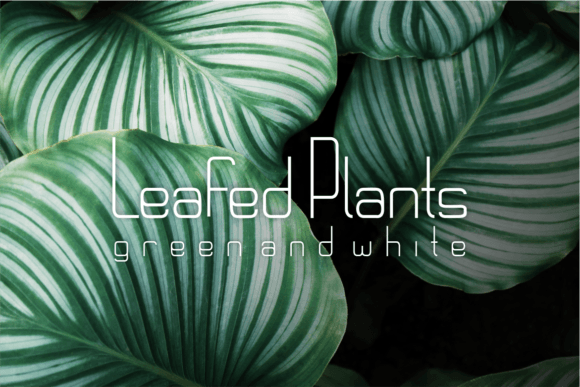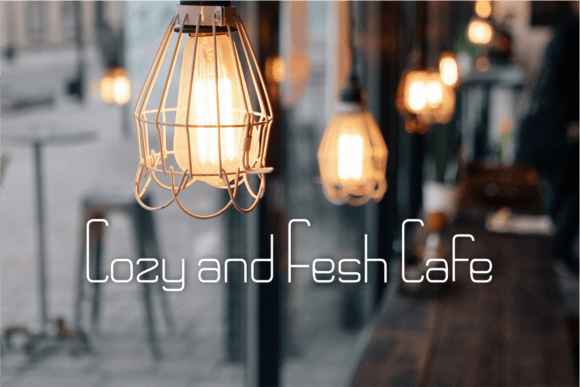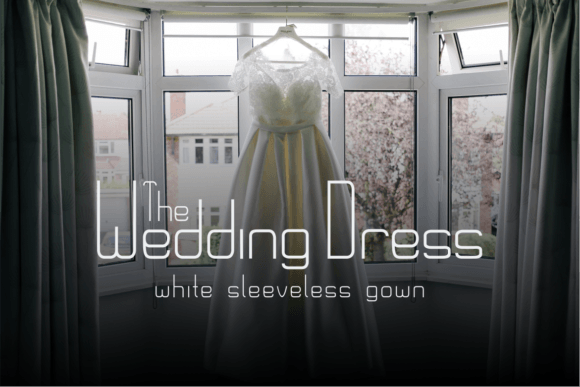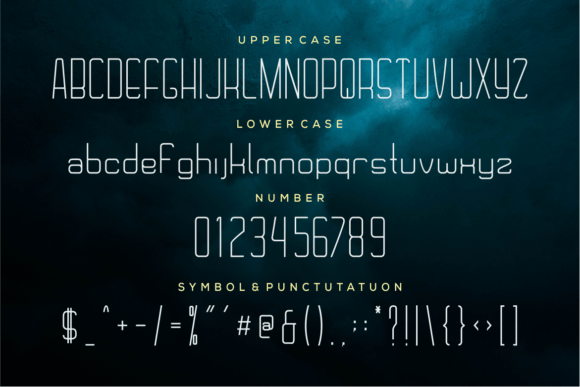
Etehnic Qee Font: Elevate Your Creative Projects with Elegance and Uniqueness
In the world of design, the right font can make all the difference in conveying your message effectively. For creative professionals, crafters, and designers, finding the perfect font that combines elegance, uniqueness, and versatility can be a daunting task. This is where Etehnic Qee Font comes into play – a thoughtfully crafted font designed to meet the creative needs of weddings, displays, cafes, and various other projects.
The Birth of Etehnic Qee Font
Etehnic Qee Font is the result of a meticulous design process aimed at creating a font that stands out from the crowd. Its creators envisioned a font that not only captures attention but also adds a touch of sophistication and charm to any project. With its own distinct uniqueness, Etehnic Qee Font is poised to become a favorite among designers and crafters looking for that special typographic element to elevate their work.
Key Features of Etehnic Qee Font
So, what makes Etehnic Qee Font so special? Here are some of its key features:
- Thin and Tall Font Type: Etehnic Qee Font boasts a slender and elongated design, making it perfect for projects that require a touch of elegance and refinement. Its tall stature ensures that your text stands out, whether it’s used for headings, titles, or short paragraphs.
- Uniqueness: One of the standout features of Etehnic Qee Font is its uniqueness. In a sea of generic fonts, Etehnic Qee offers a refreshing change, allowing your designs to stand out and capture attention.
- Versatility: Whether you’re working on a wedding invitation, a cafe menu, a product display, or any other creative project, Etehnic Qee Font adapts seamlessly. Its versatility makes it an excellent choice for a wide range of applications.
Etehnic Qee Font is more than just a font – it’s a design solution for creative professionals. Here are some of the many creative projects where Etehnic Qee Font can shine:
- Weddings: From elegant wedding invitations to beautiful place cards, Etehnic Qee Font adds a touch of sophistication and romance to any wedding-related project.
- Displays: Make your product displays, posters, and banners stand out with Etehnic Qee Font. Its unique design ensures that your message captures attention and leaves a lasting impression.
- Cafes and Restaurants: Elevate your cafe or restaurant’s branding with Etehnic Qee Font. Use it for menus, signage, and promotional materials to create a distinctive and inviting atmosphere.
Why Choose Etehnic Qee Font?
With so many fonts available, why should you choose Etehnic Qee Font for your projects? Here are a few compelling reasons:
- Elegance: Etehnic Qee Font brings an unparalleled level of elegance to your designs, making them instantly more appealing and sophisticated.
- Originality: In a world of design clichés, Etehnic Qee Font offers a breath of fresh air with its unique and distinctive style.
- Easy to Read: Despite its thin and tall design, Etehnic Qee Font remains clear and easy to read, ensuring that your message is communicated effectively.
Etehnic Qee Font is a game-changer for designers and crafters looking to add a touch of elegance and uniqueness to their creative projects. Its thin and tall font type, combined with its versatility and originality, makes it an excellent choice for a wide range of applications. Whether you’re working on a wedding project, a display, or a cafe menu, Etehnic Qee Font is sure to elevate your design and leave a lasting impression on your audience.